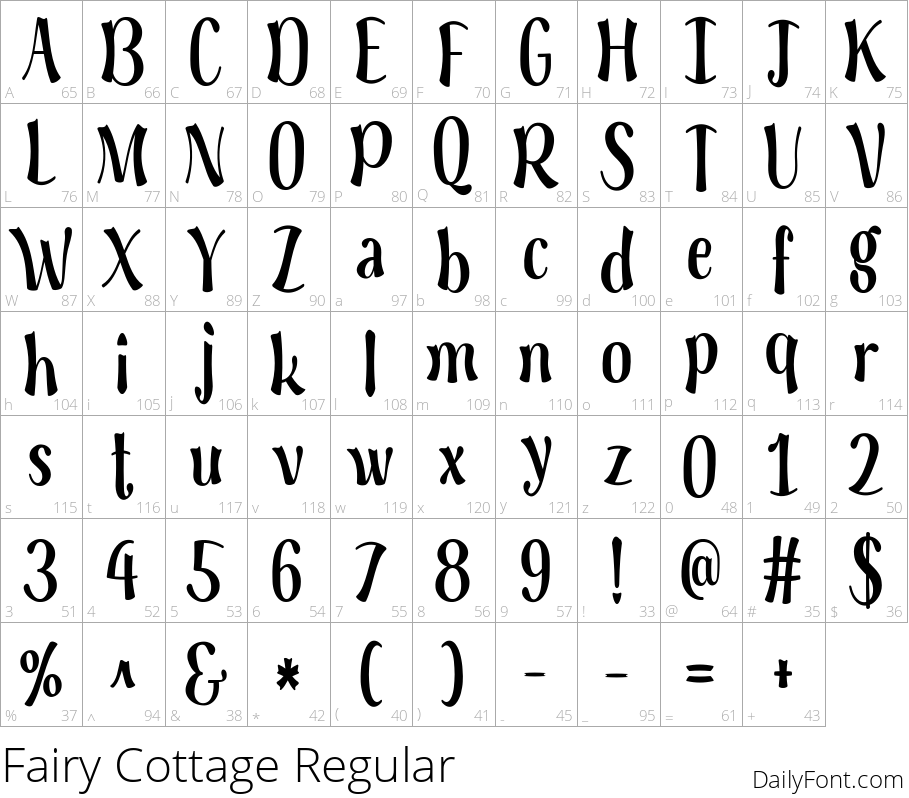
Fairy Cottage Regular
Searching for a whimsical and delightful font to bring a touch of magic to your design? Look no further than a charming display font like Fairy Cottage! This enchanting typeface is perfect for projects that require a playful, childlike charm, such as cartoon-inspired designs, children's games, or anything that needs a dash of whimsy.
With its light and airy feel, Fairy Cottage is sure to add a sprinkle of fairy dust to your creation. Its rounded edges and soft curves evoke the sense of wonder and curiosity that comes with stepping into a mystical forest or exploring a secret garden. The font's gentle, flowing lines make it ideal for use in headings, titles, and captions, where you want to draw attention to a particular message or theme.
Fairy Cottage is also a great choice when you need a font that can convey a sense of innocence and playfulness. Whether you're designing a children's book, creating a whimsical logo, or crafting an eye-catching social media graphic, this font will add a touch of magic to your design. Its versatility makes it suitable for a wide range of projects, from educational materials to party invitations.
If you're searching for a font that embodies the essence of fantasy and imagination, Fairy Cottage is sure to be a perfect match. With its dreamy, ethereal quality, it's the perfect choice for designers who want to add a little bit of fairy tale magic to their work.